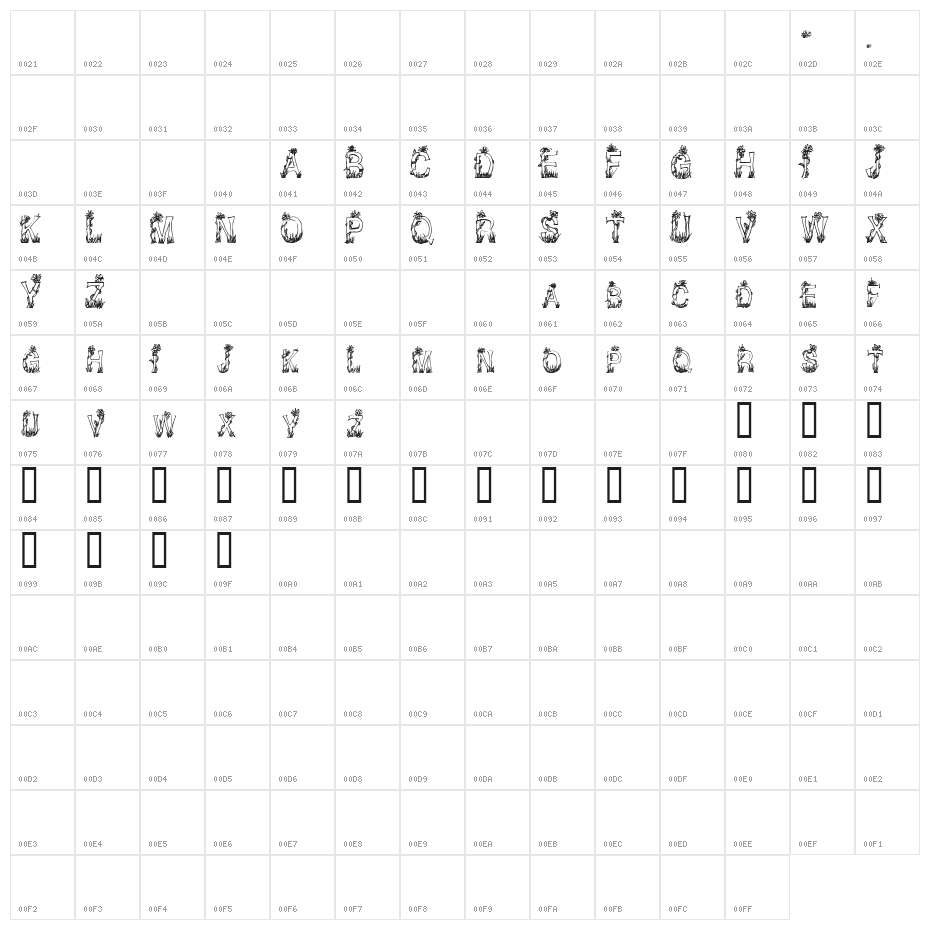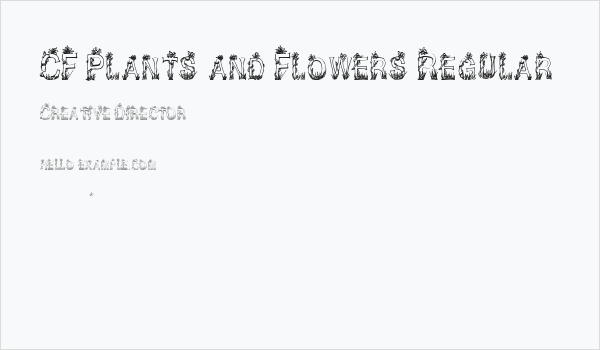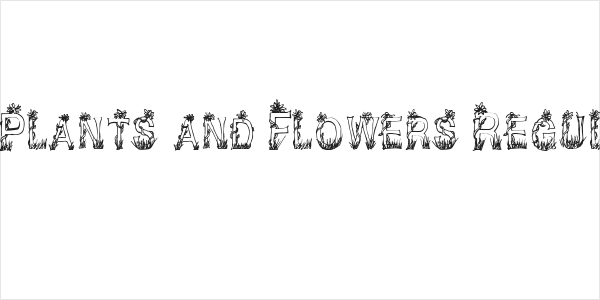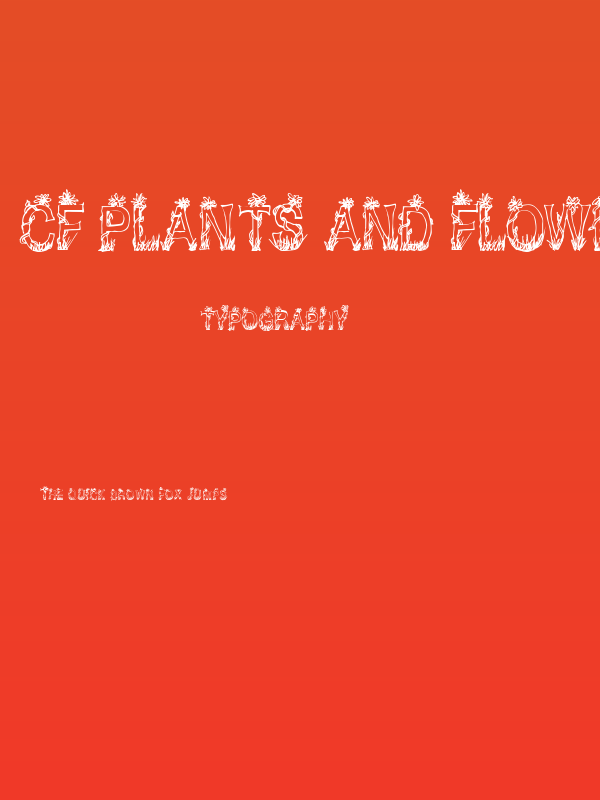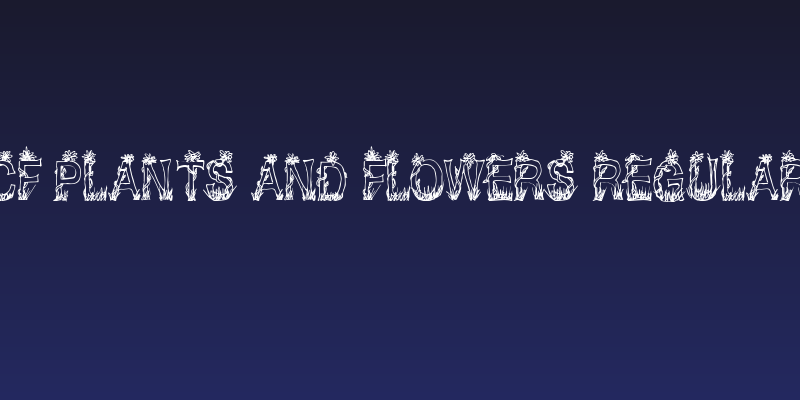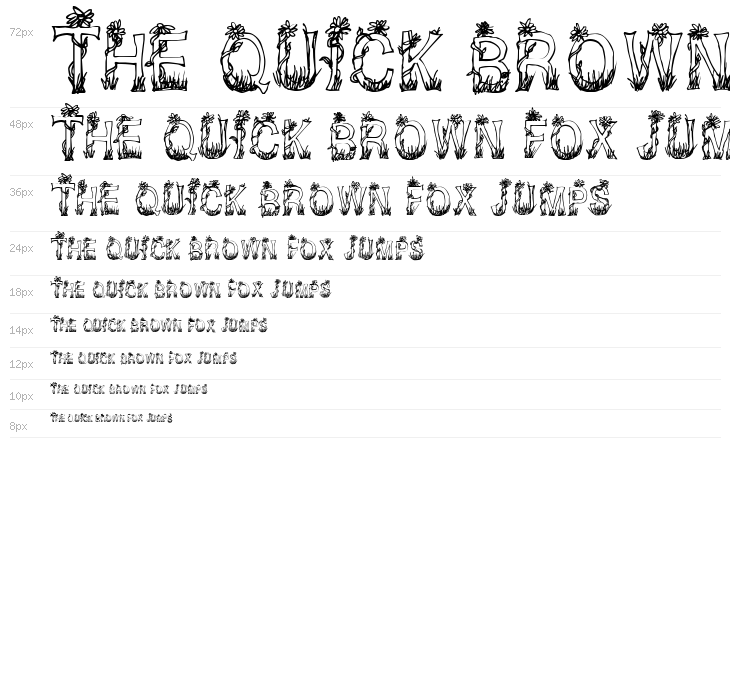
CF Plants and Flowers Regular Font
CF Plants and Flowers Regular Description
This decorative font features a unique design where each letter is intertwined with plant and flower motifs. The uppercase and lowercase letters are adorned with intricate details of leaves and blossoms, creating a whimsical and organic appearance. The characters are bold and artistic, with a hand-drawn quality that emphasizes nature's beauty. This font is perfect for projects that require a touch of creativity and a connection to the natural world. The playful and detailed design makes it ideal for use in artistic and themed projects.
| Use Case | Logos, Posters, Artistic projects |
| Proposed Projects | Ideal for nature-themed designs, greeting cards, posters, and eco-friendly branding. |